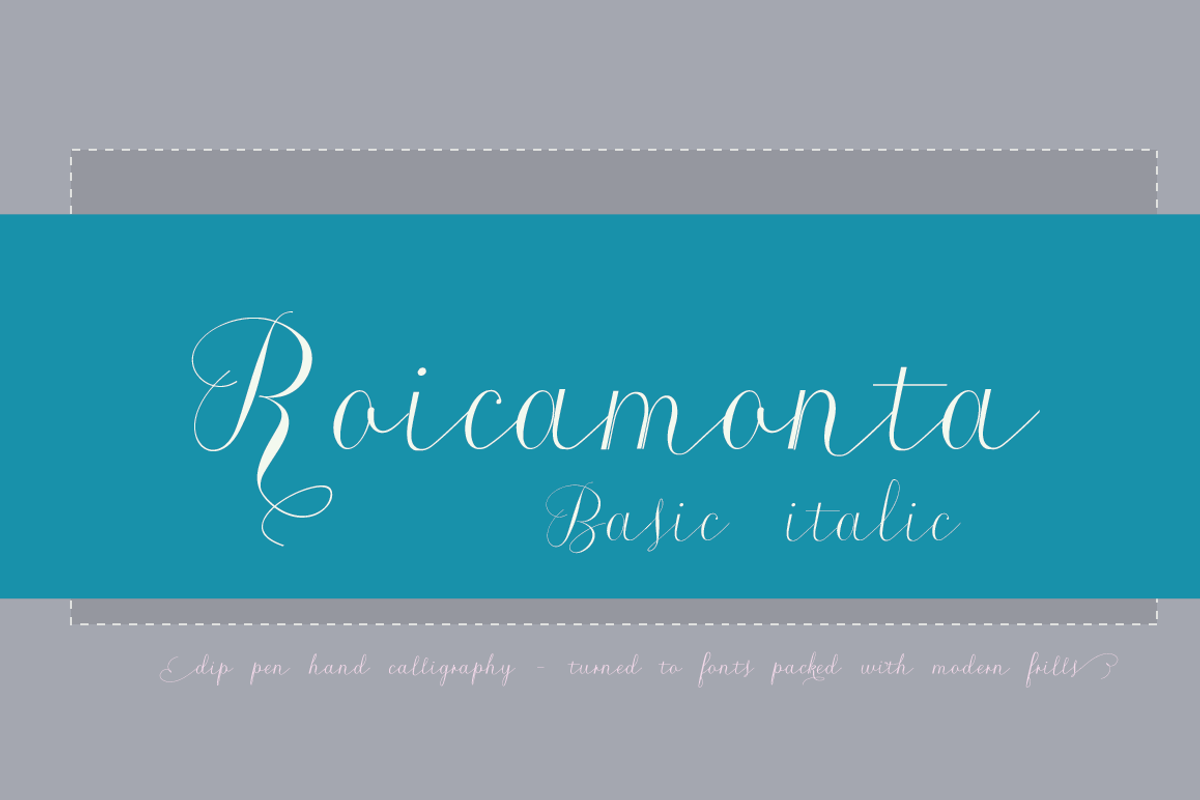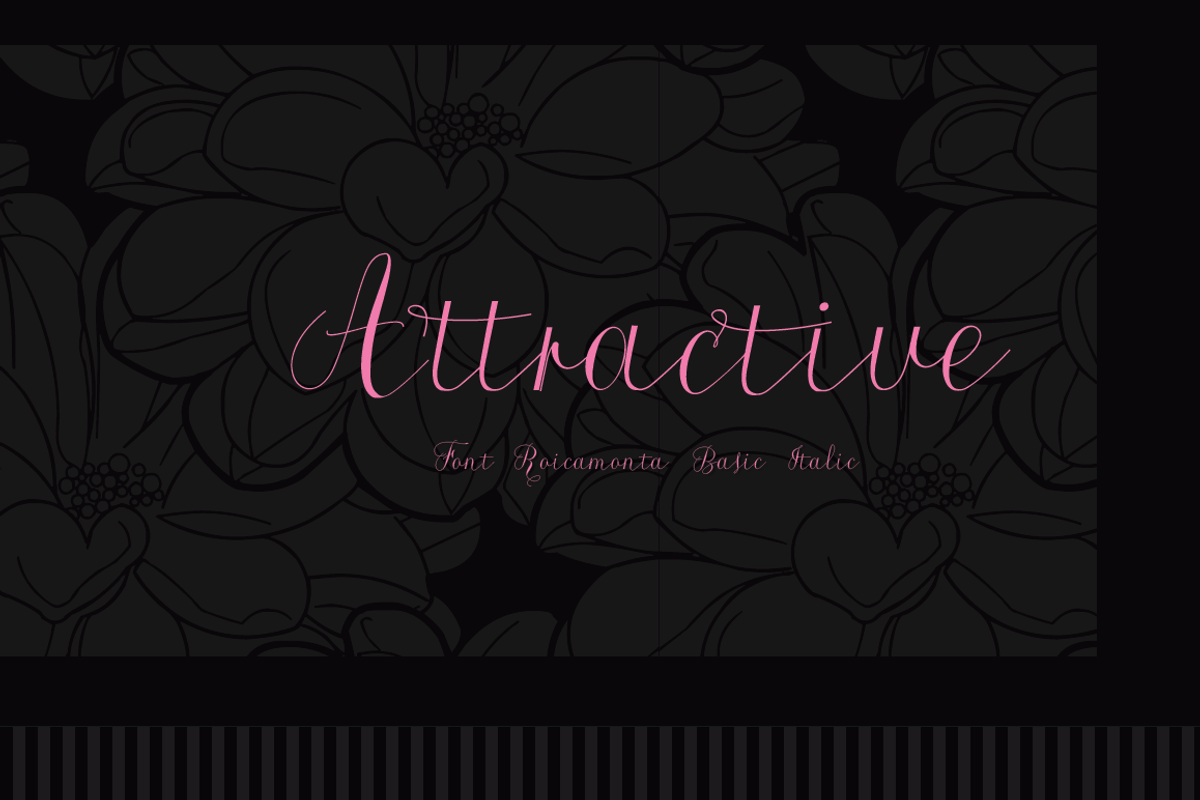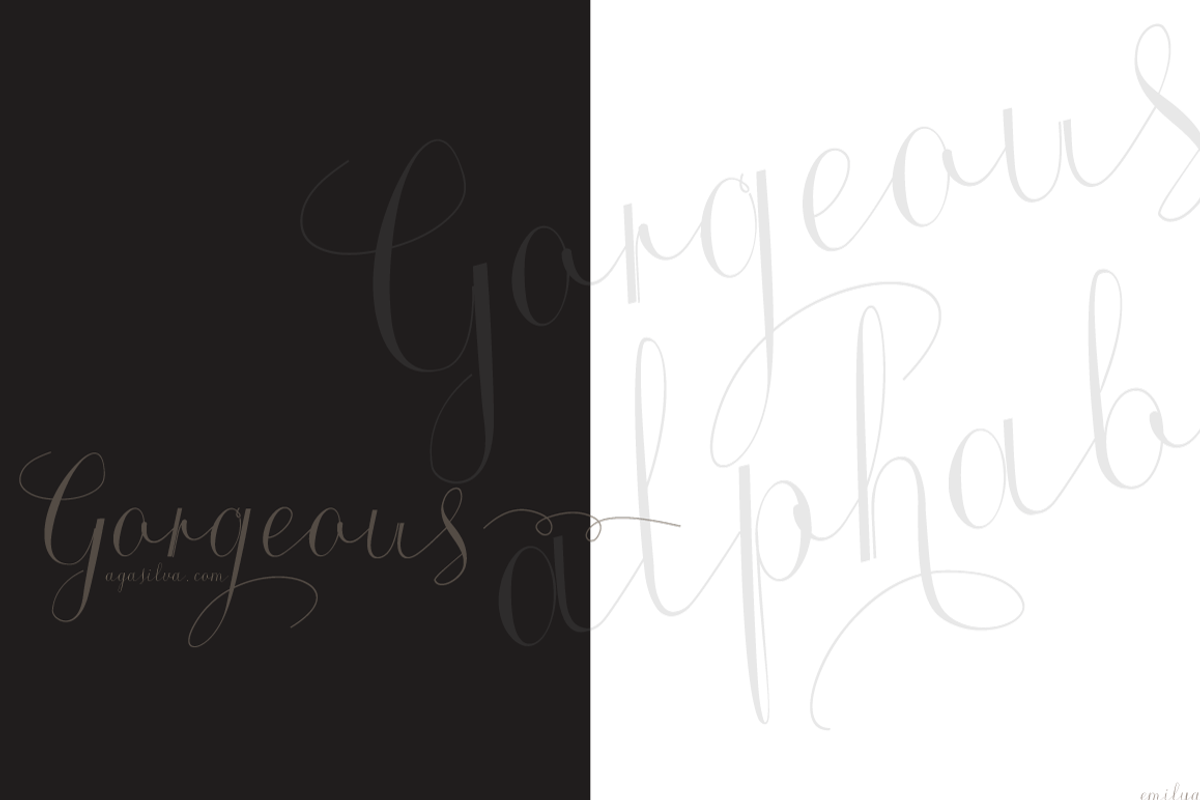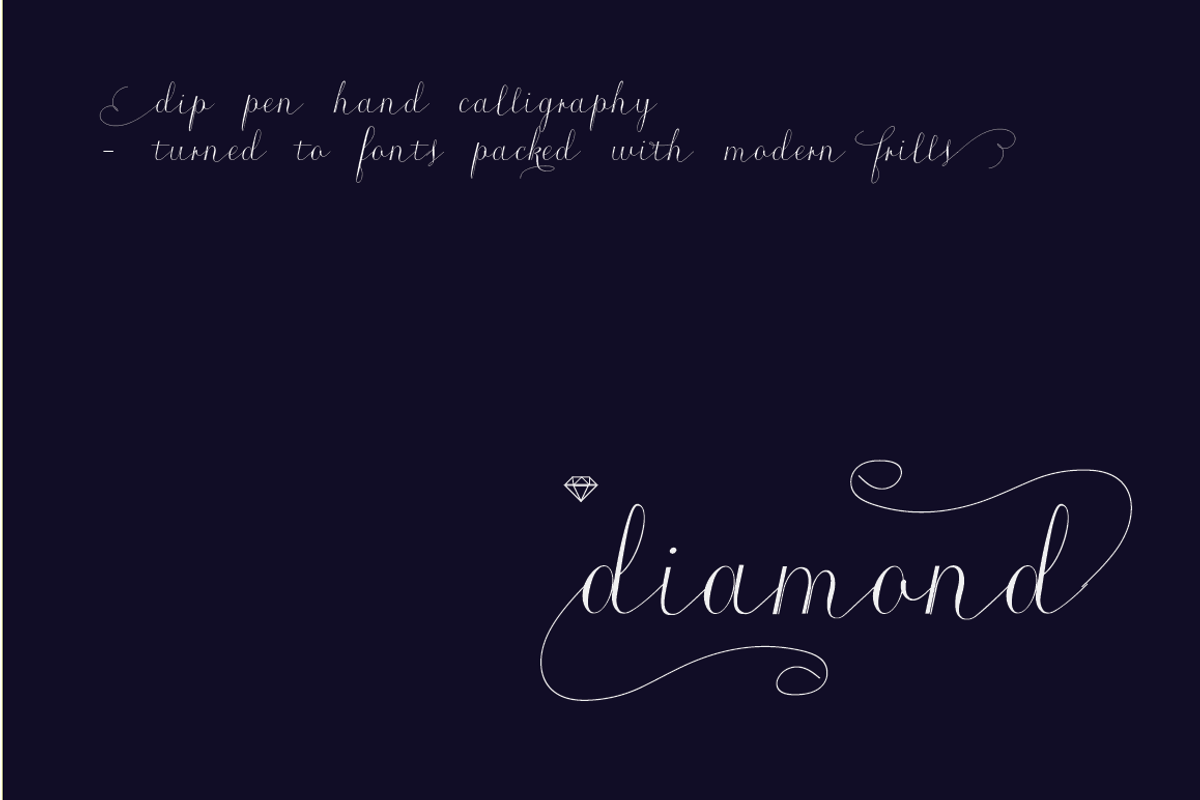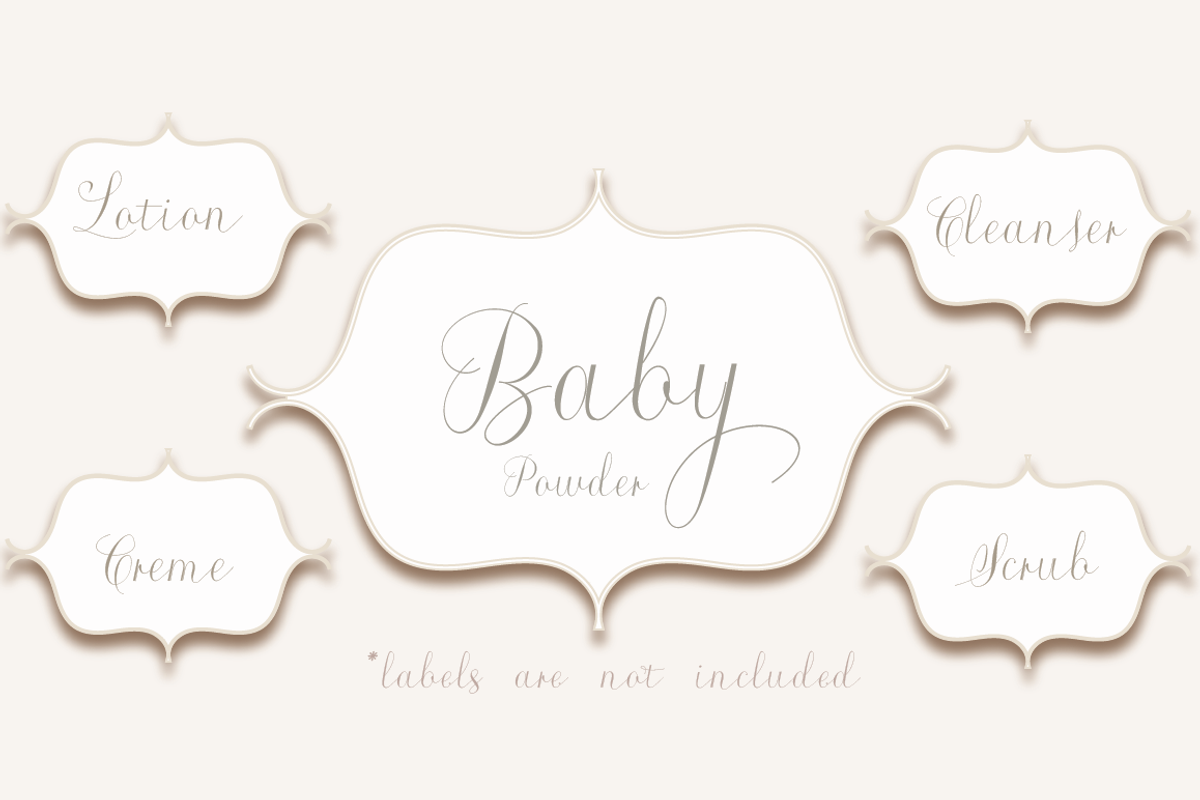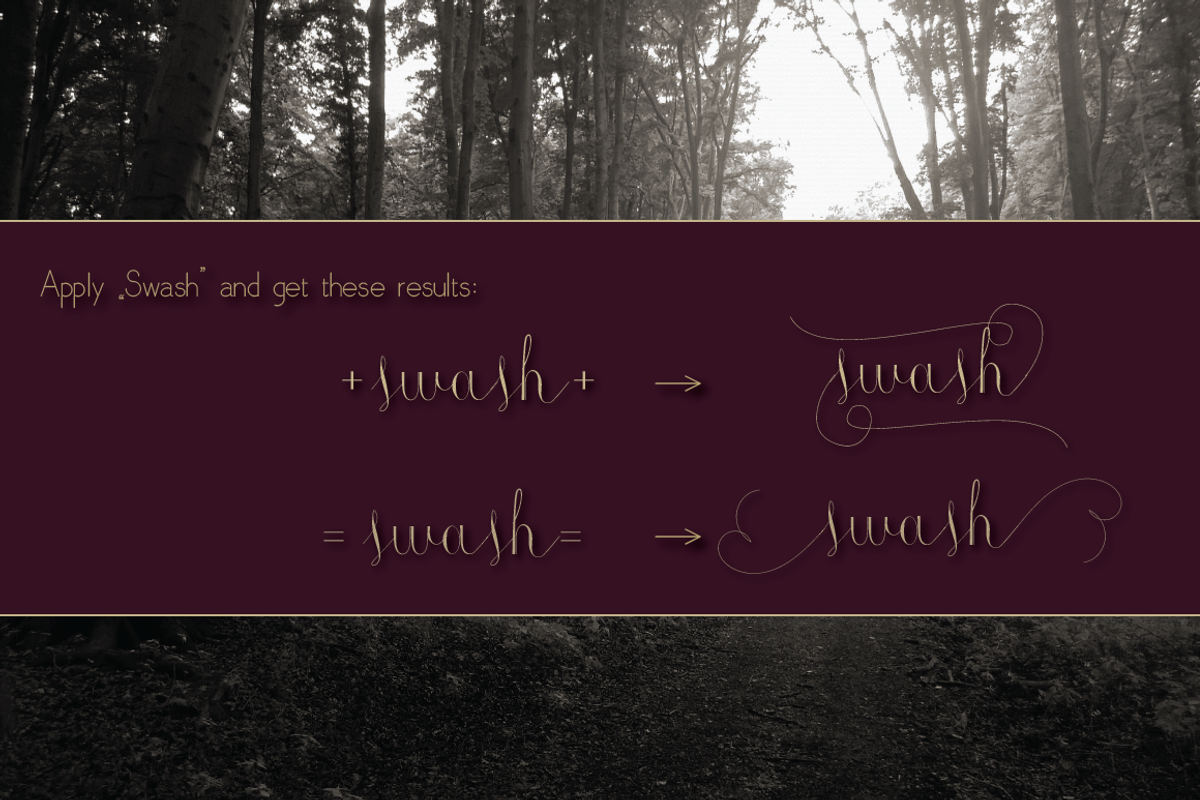
Roicamonta Basic Italic otf font
Roicamonta Basic Italic otf font by Aga Silva is a font selected for branding, posters, packaging, typography.
- Complete with variety of swashes and fancy ligatures.
Why Roicamonta Basic Italic otf font is worth a look
Roicamonta Basic Italic otf font by Aga Silva fits naturally into Branding, posters, packaging, typography.